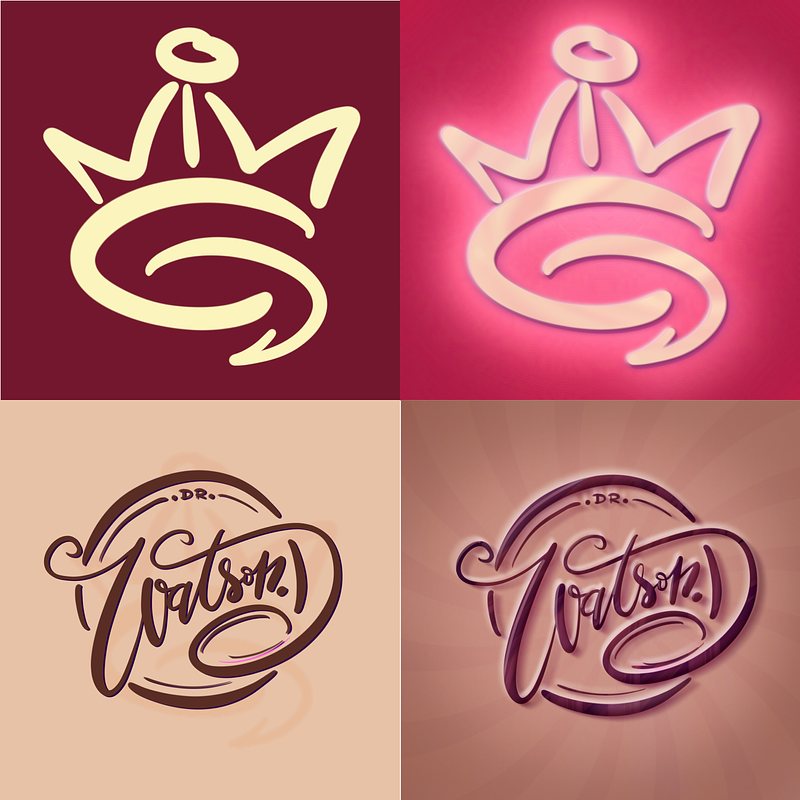
The Log 00002-The Old Work Glow-Up
The Journey
I woke up early and couldn't fall back asleep, so I decided to give my old work a glow-up. I added some vignettes and used new techniques I recently learned, especially about patterns inside the letters. My logo pops now, maybe even a little too much. But I love it!